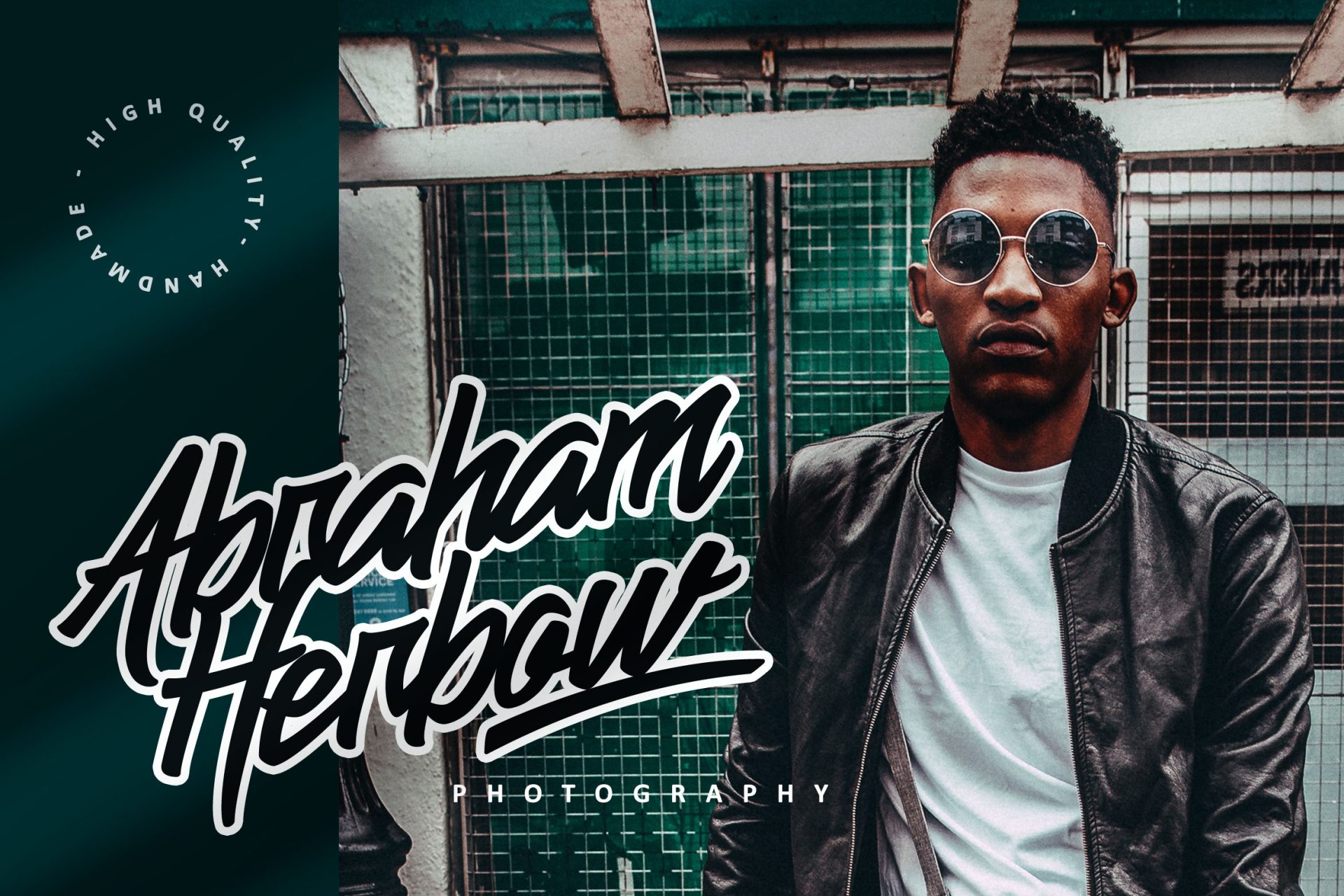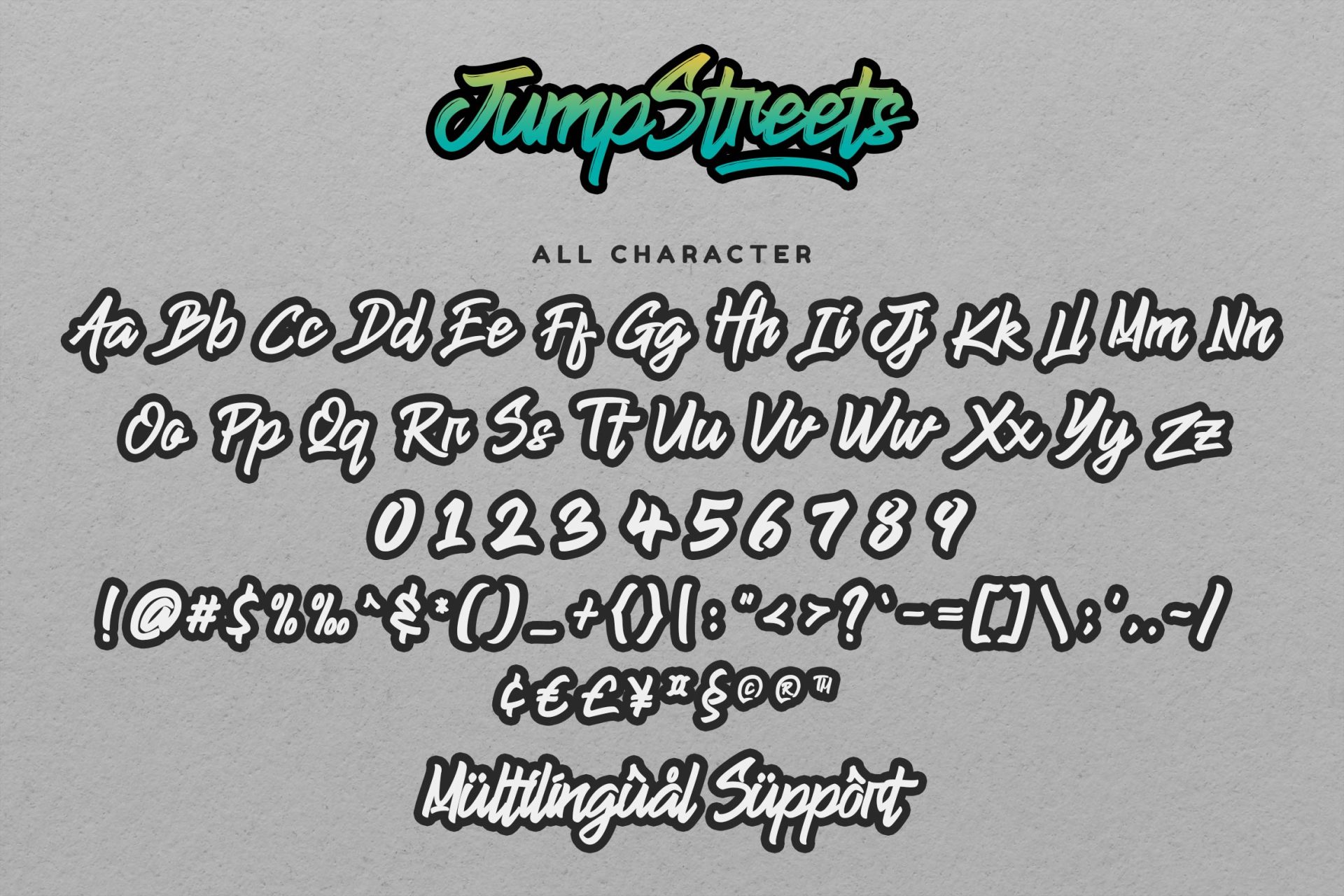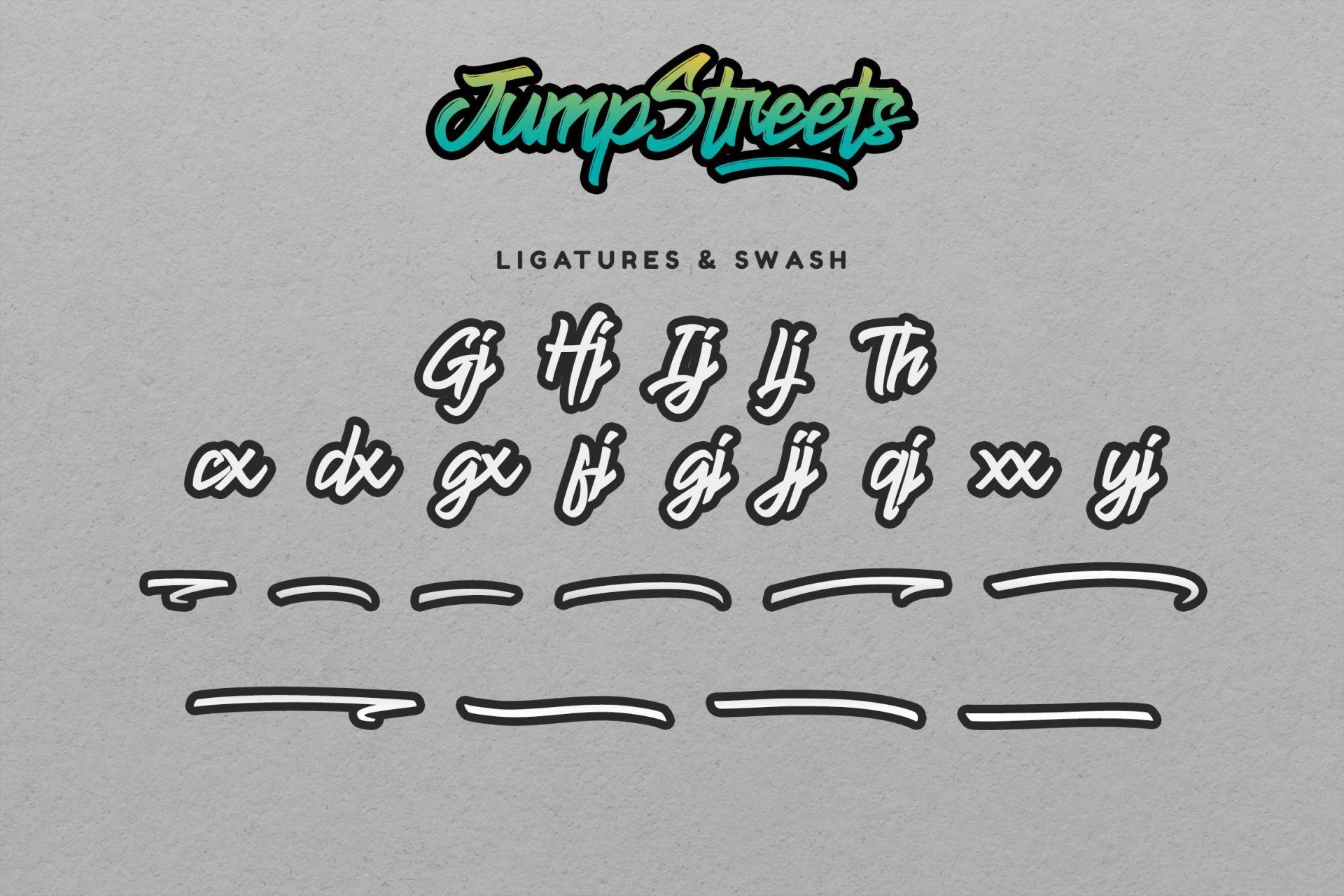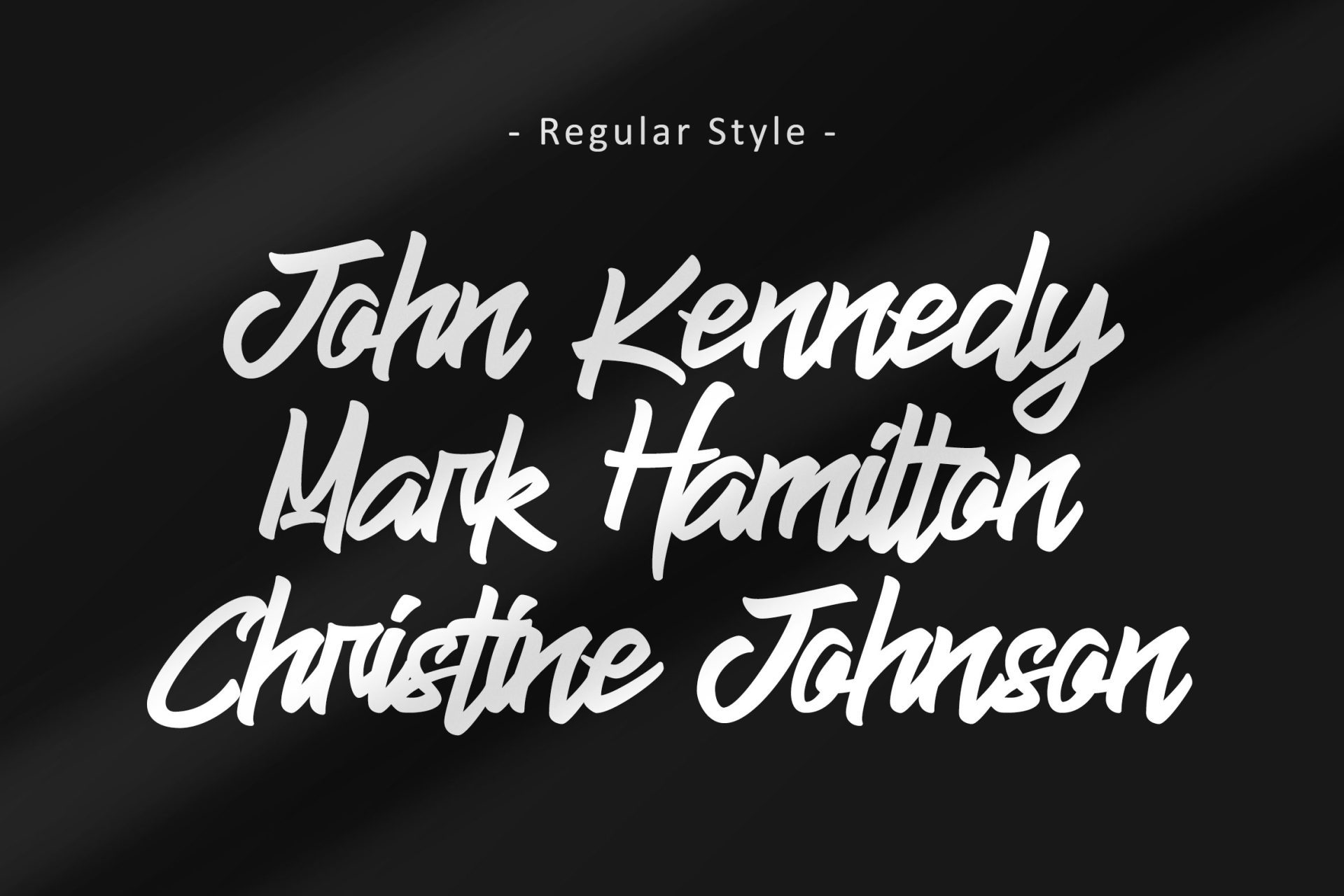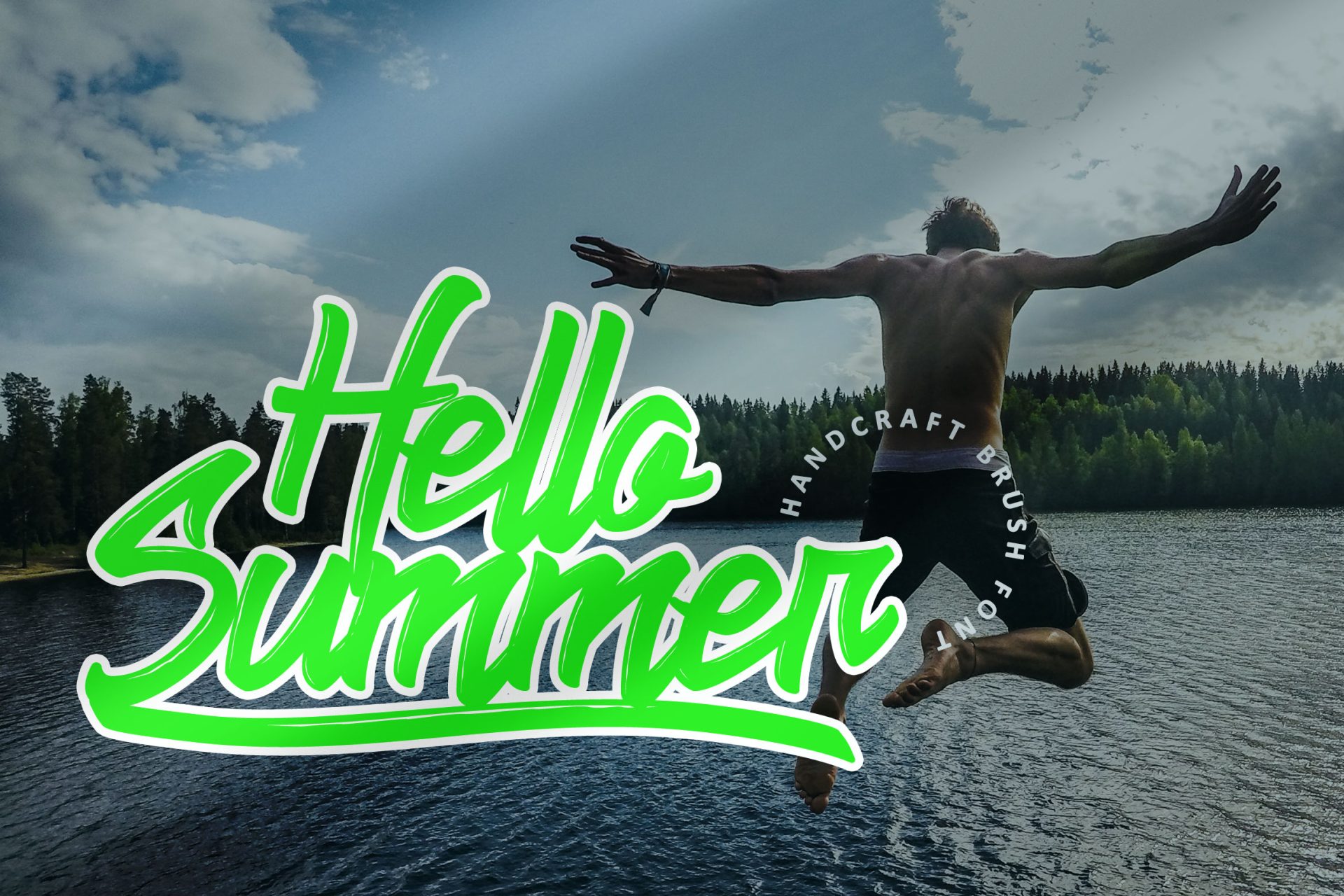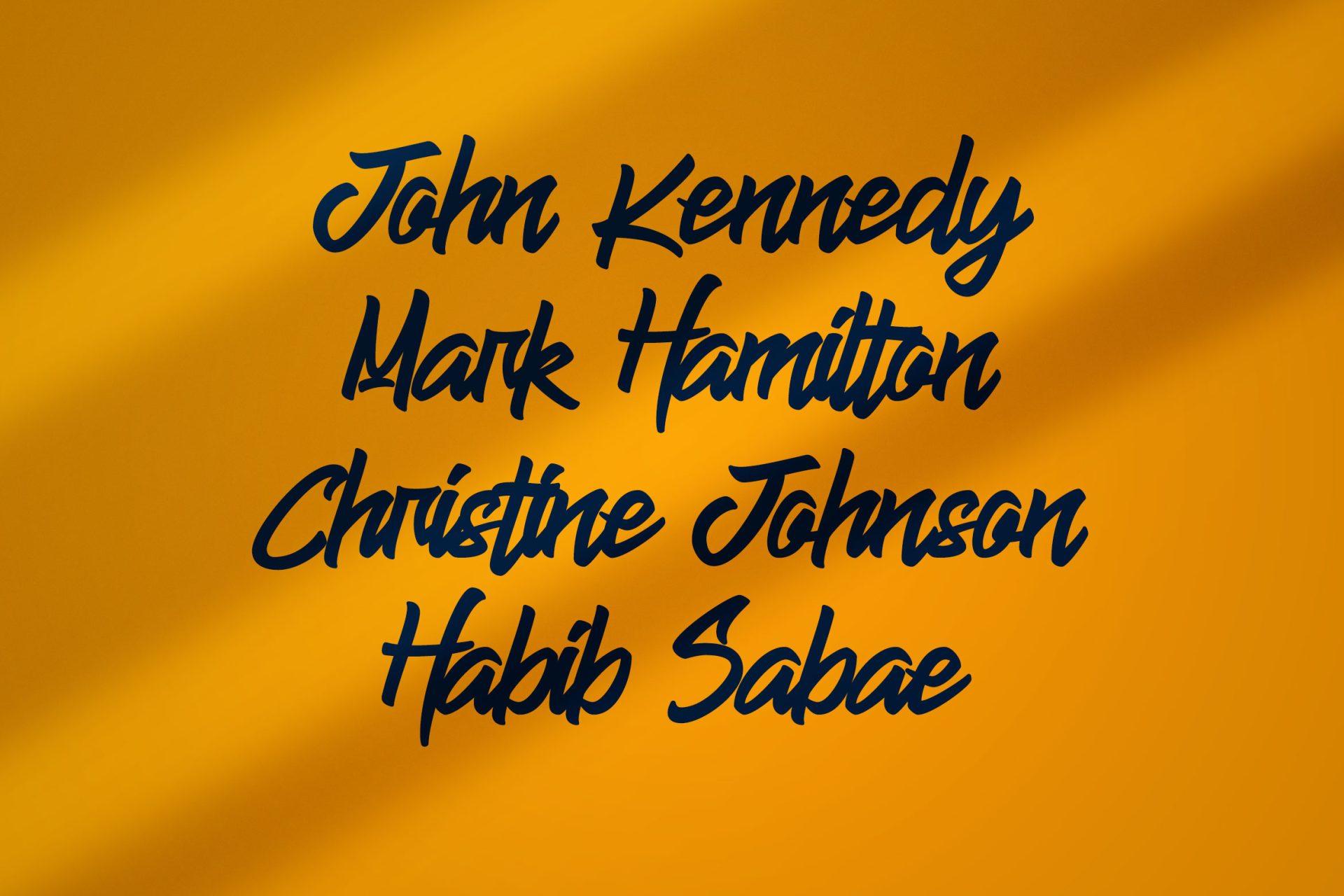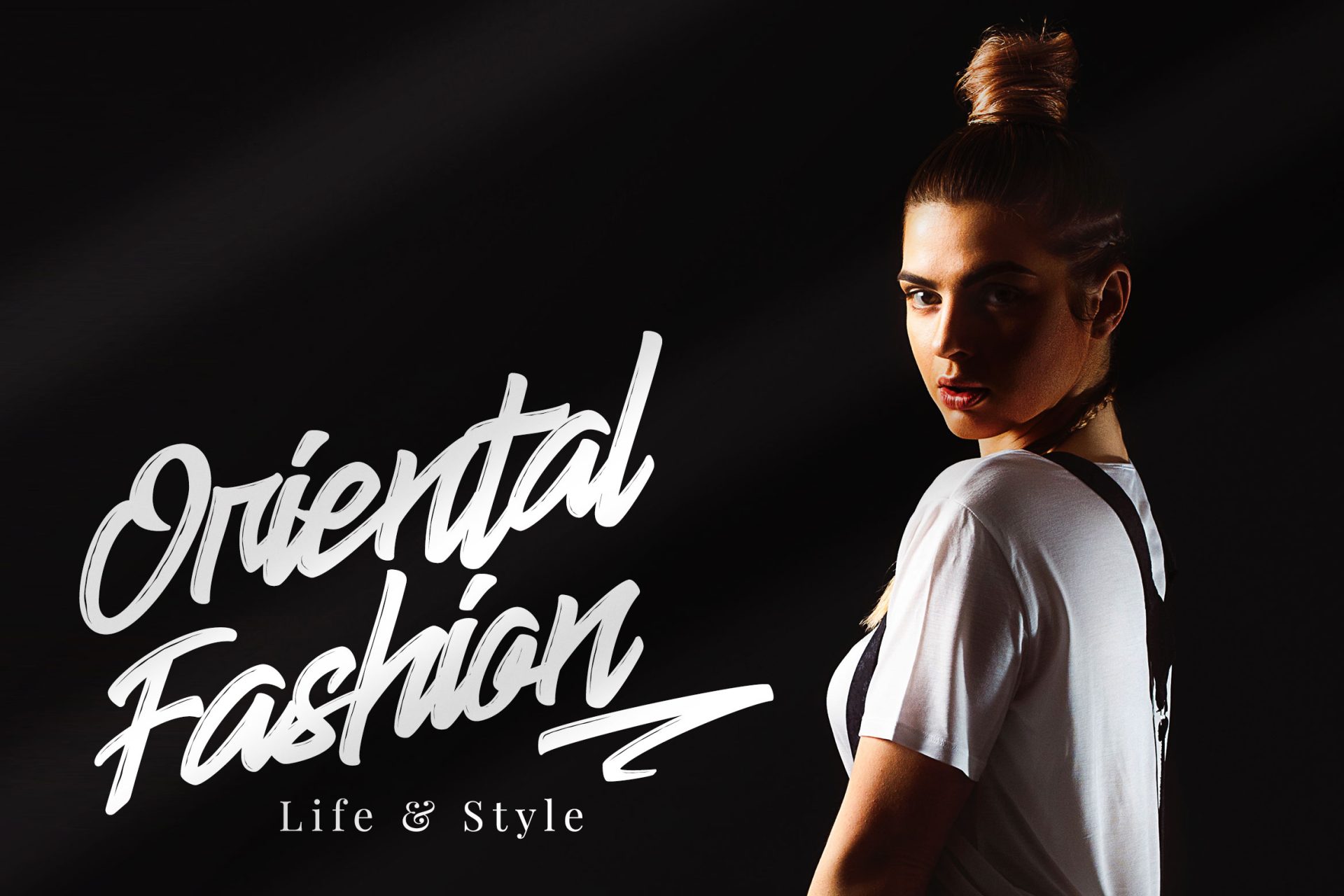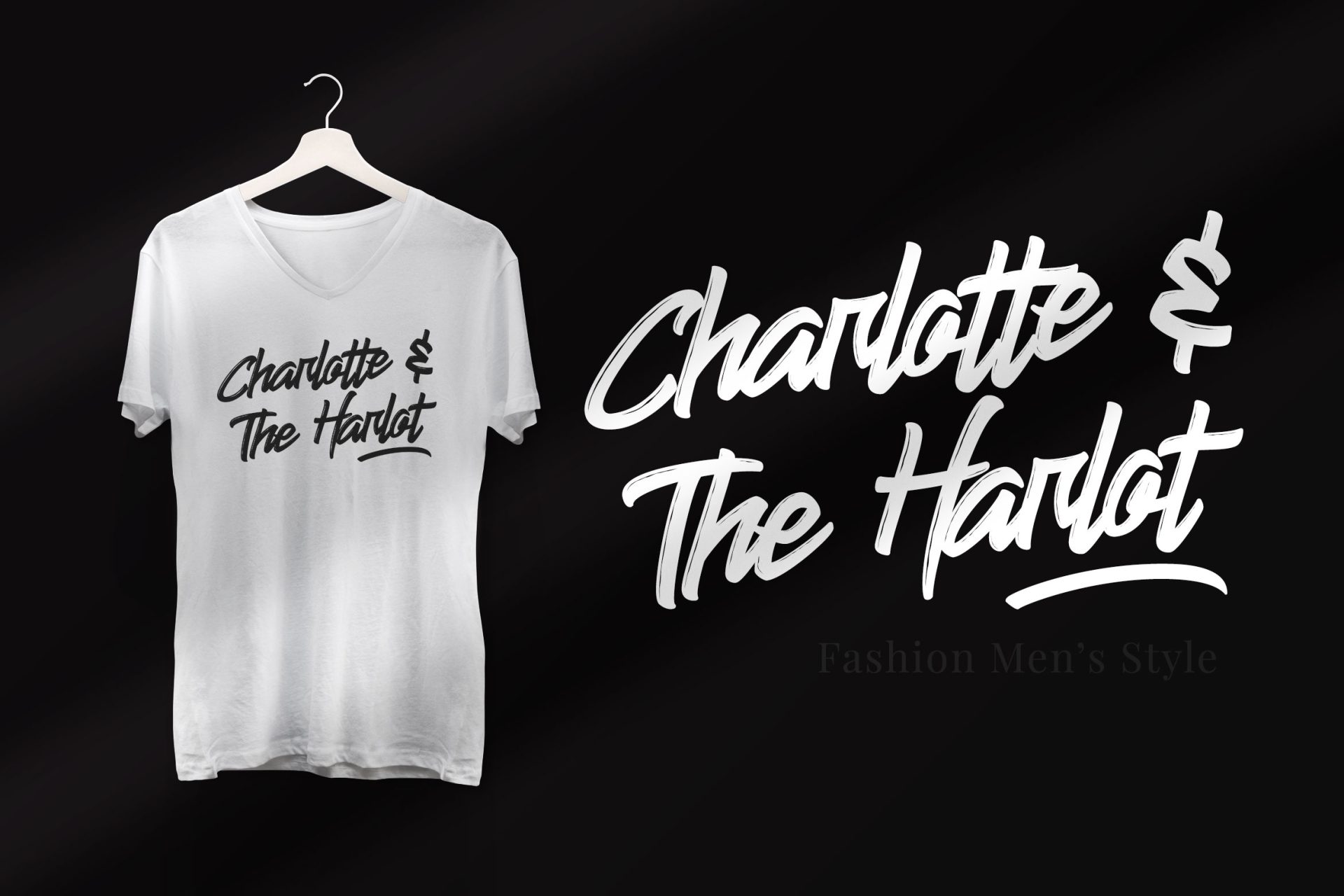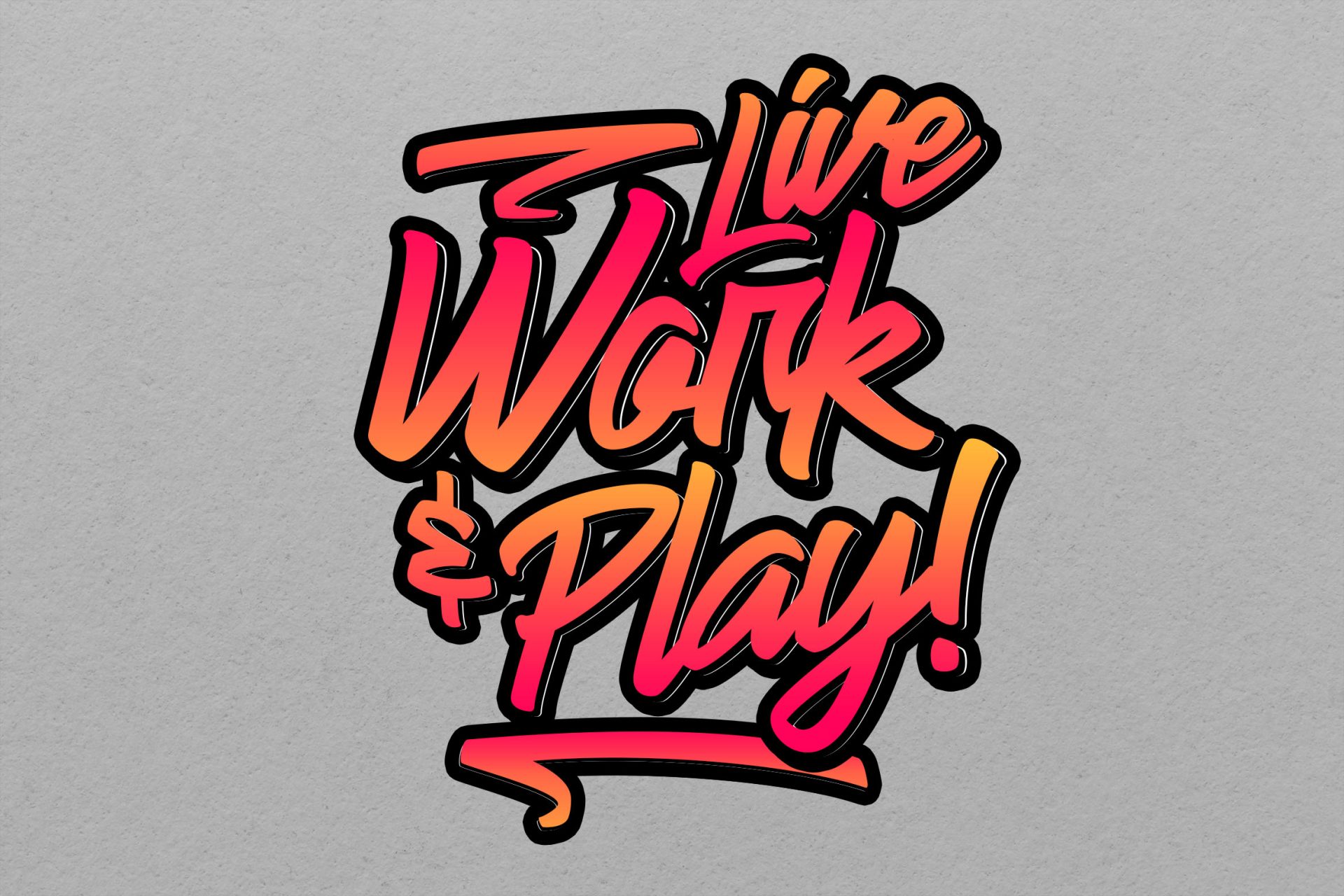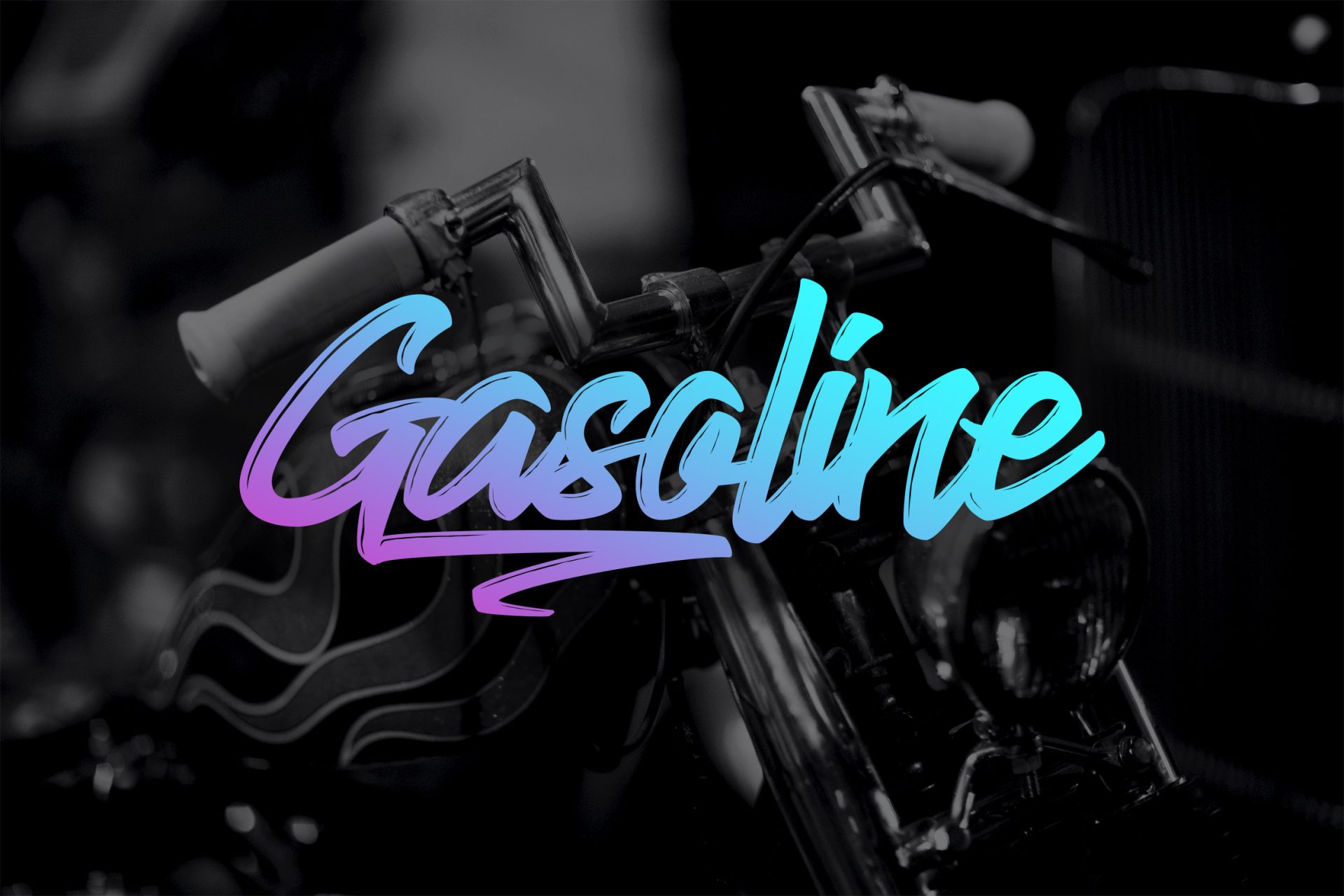
Jump Streets is handcrafted script brush font. It has retro, vintage, and Cool styles. This font has 3 styles: Regular, Rough, & Line style. It’s a great font for fashion, apparel projects, signature, album cover, logo, branding, magazine, social media, & advertisements, but also works great for other projects.